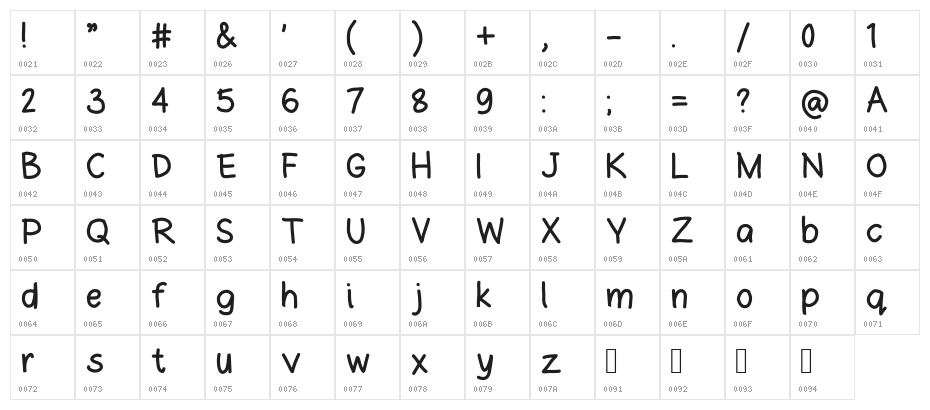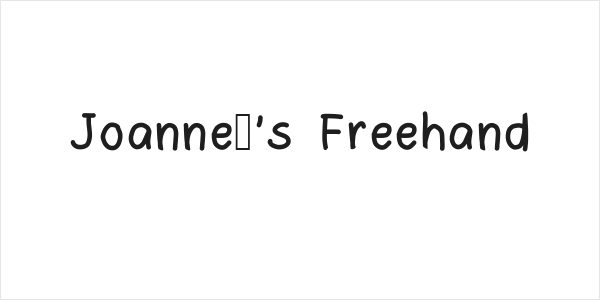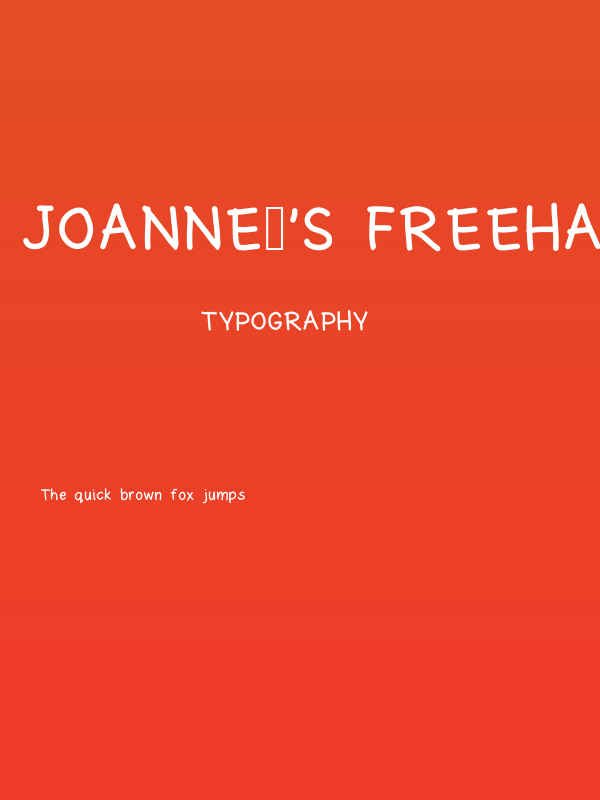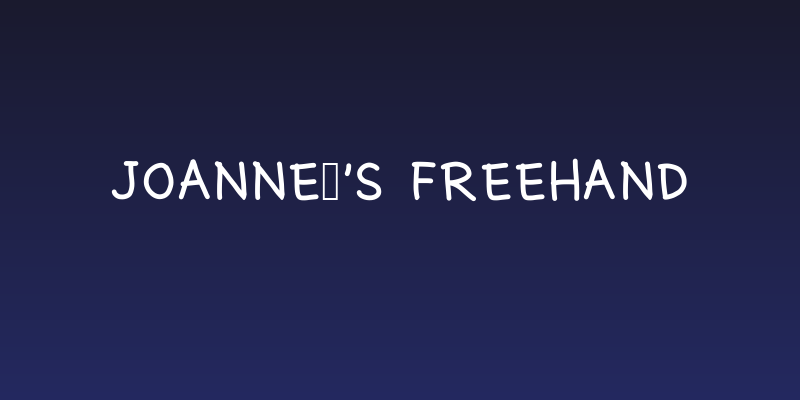
Joanne's Freehand Font
Joanne's Freehand Description
This font exudes a playful and casual vibe, reminiscent of handwritten notes or doodles. The characters are slightly irregular, adding to the charm and authenticity of a freehand style. Each letter has a unique flair, with rounded edges and a consistent stroke width that maintains readability. The numbers and special characters follow the same whimsical design, making them blend seamlessly with the alphabet. This font is perfect for projects that require a personal touch, such as greeting cards, invitations, or children's book illustrations. Its informal style makes it approachable and friendly, ideal for conveying warmth and creativity.
| Proposed Projects | Greeting cards, invitations, children's books, personal notes, creative projects. |